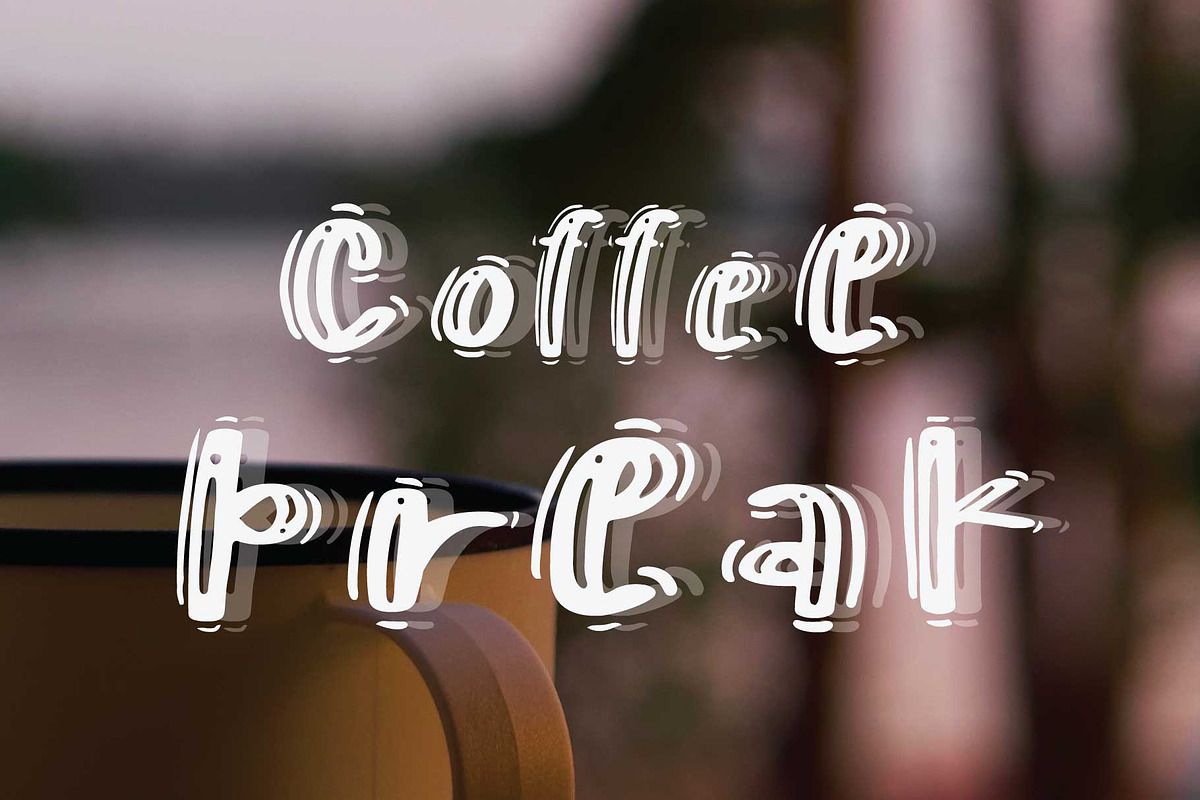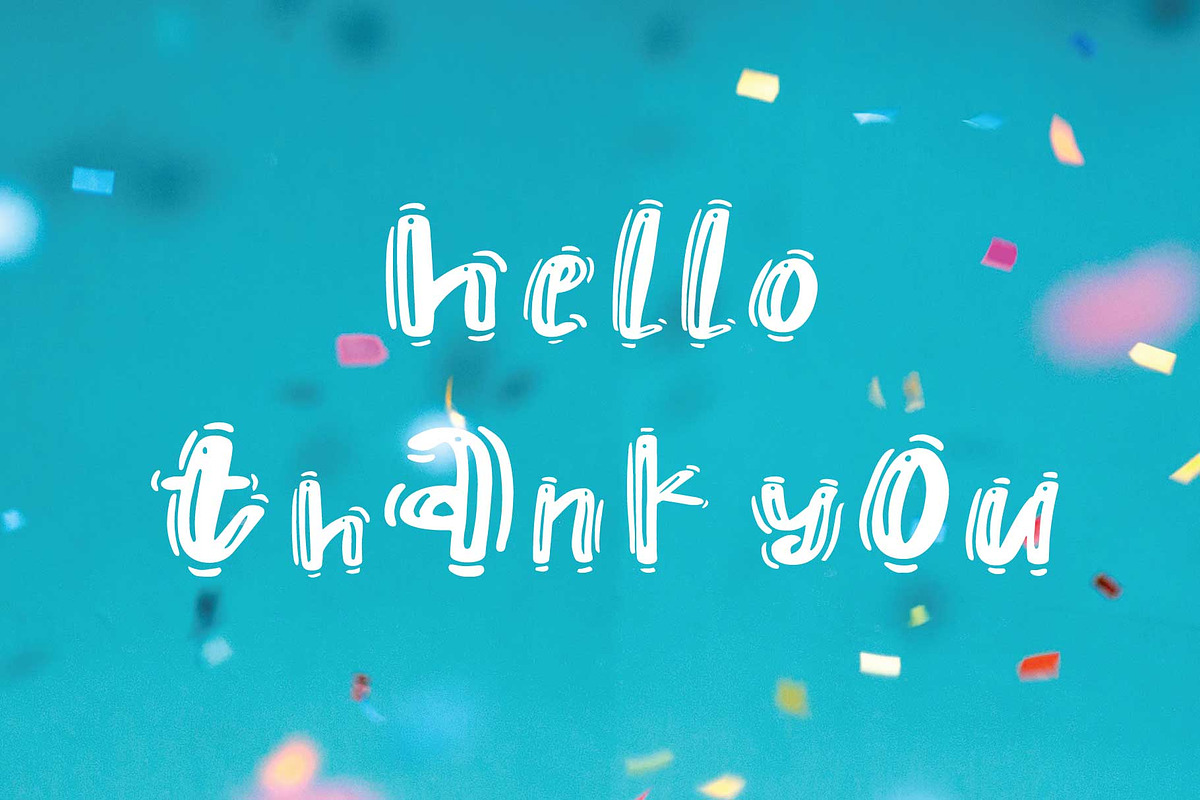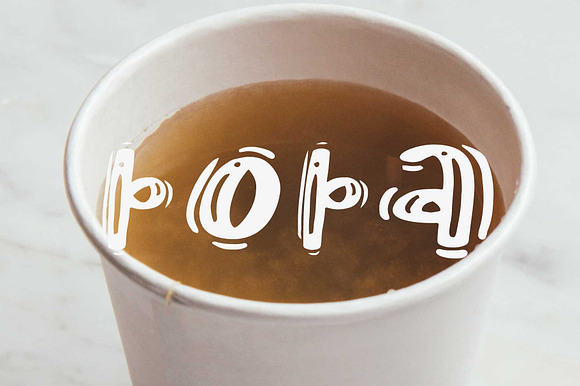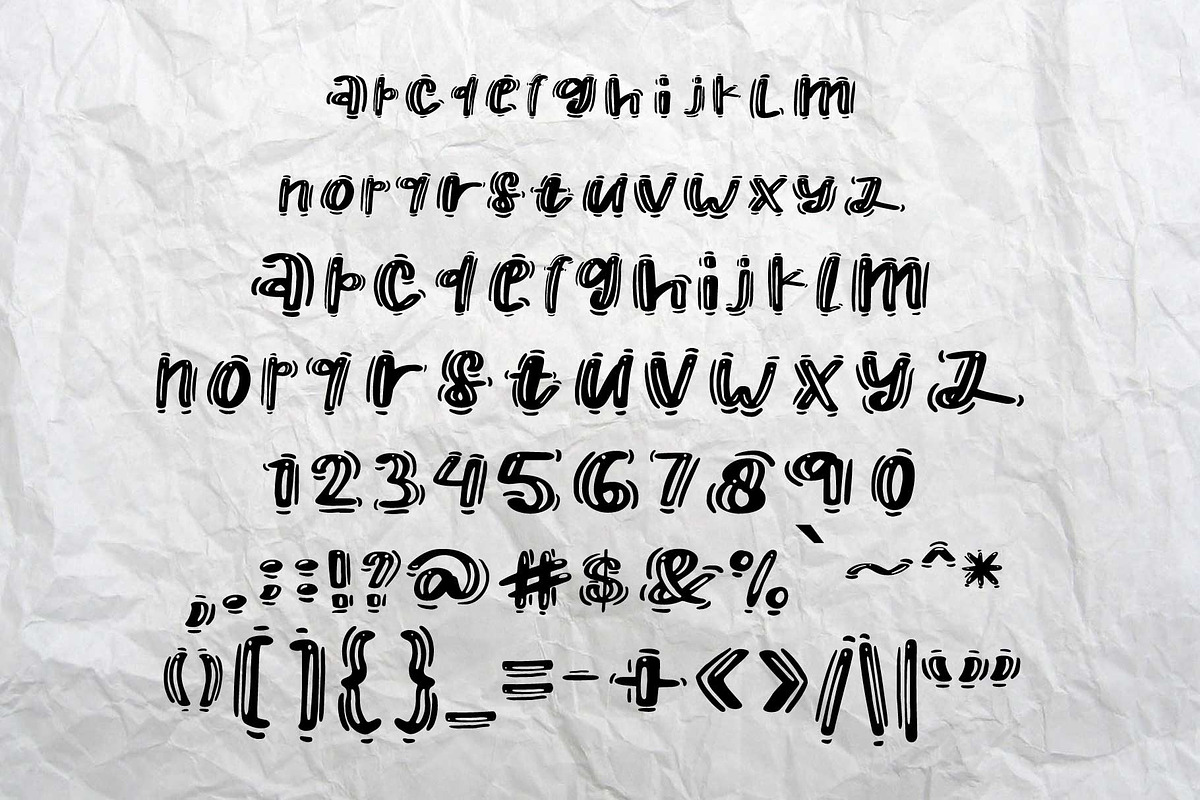
boba font 2
Boba Font 2 by Goodigital13 is a font selected for branding, posters, packaging, typography.
boba font 2 by Mariyana fits naturally into Branding, posters, packaging, typography.